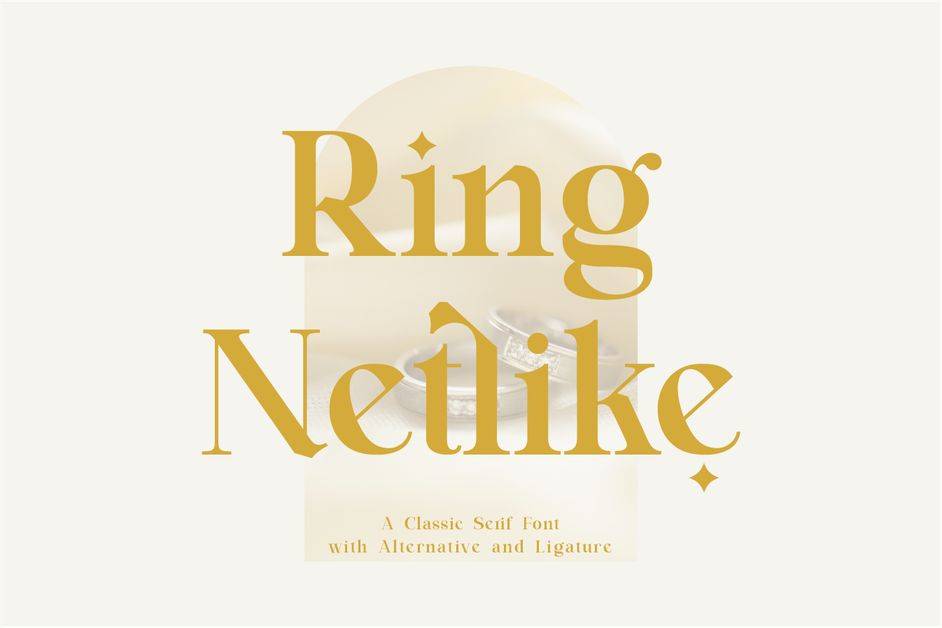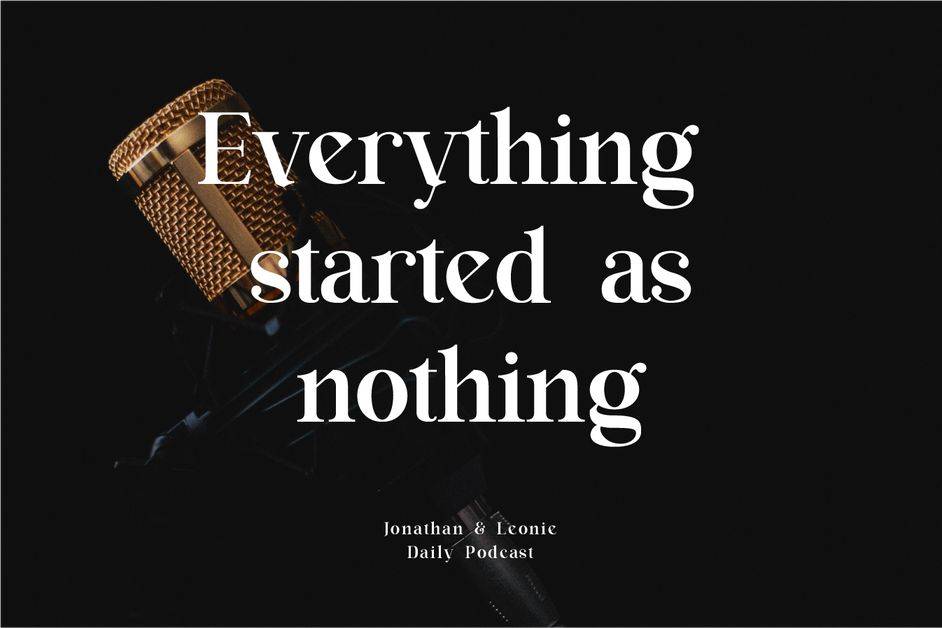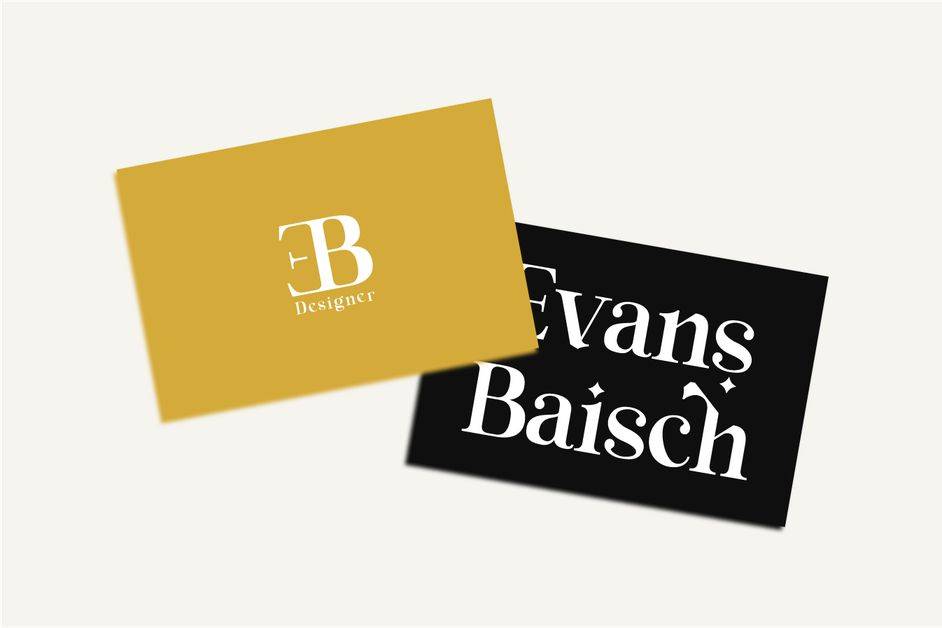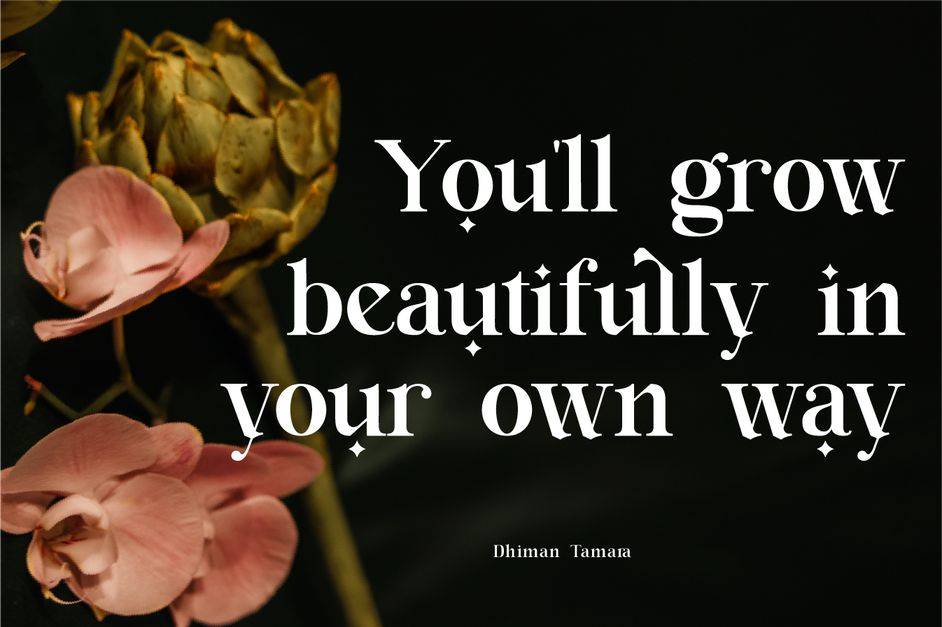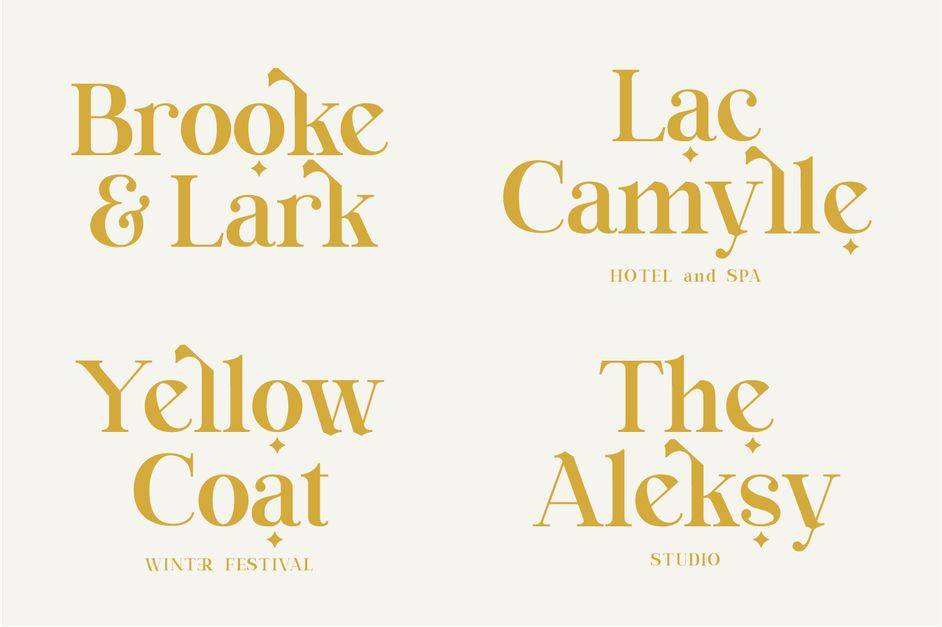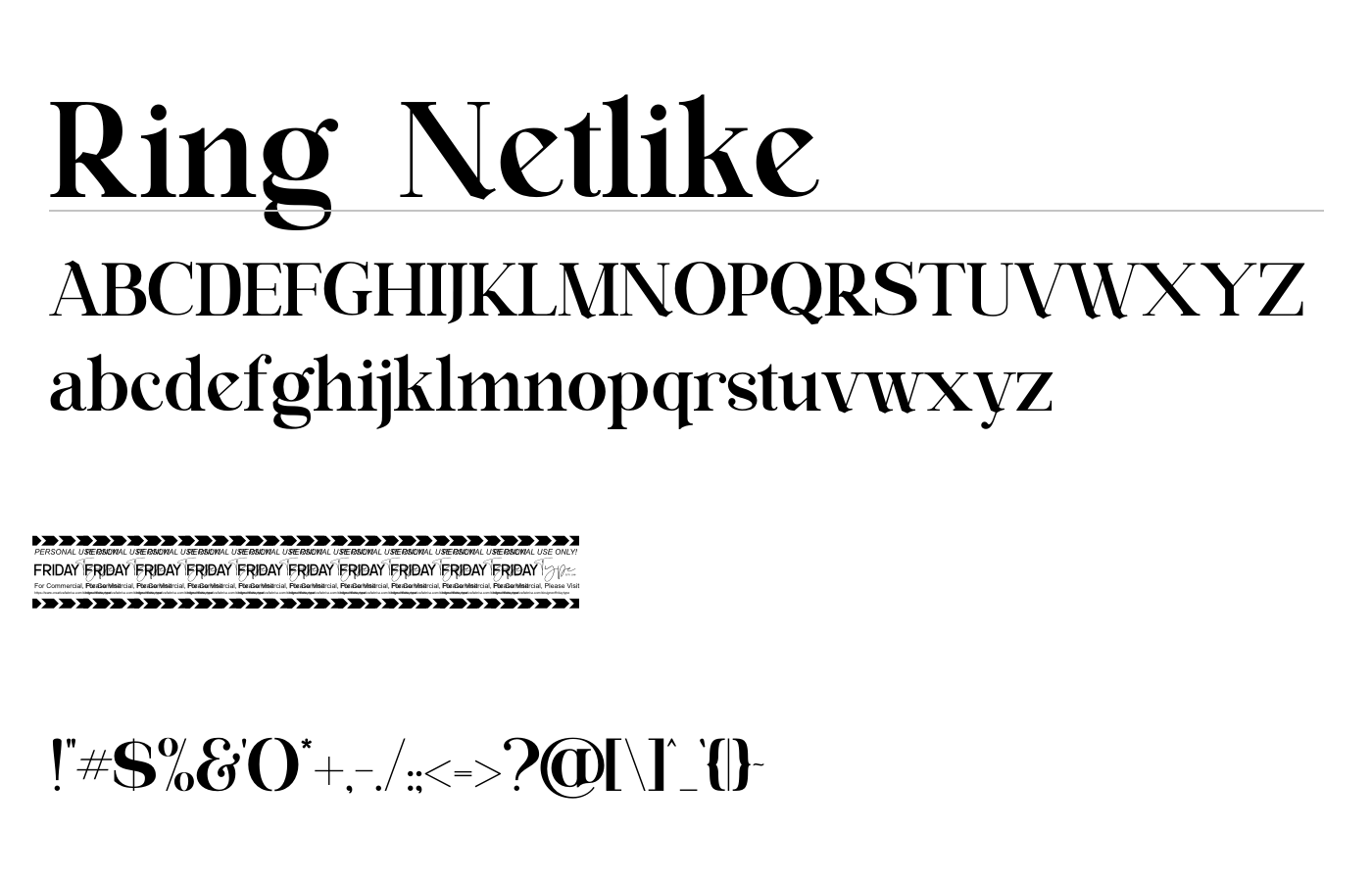
Ring Netlike is an elegant serif font with a high contrast between thick and thin strokes, featuring sharp, delicate serifs and a refined, classic style. Its distinct letterforms with bracketed serifs and double-story characters give it a sophisticated yet modern feel, making it ideal for luxury branding, editorial headlines, and stylish logo designs where a timeless, upscale impression is desired.
| Font family | Ring Netlike Font |
| Languages supported | Latin, Greek, Cyrillic, Symbols |
| Designer | Farida Kurniawan |